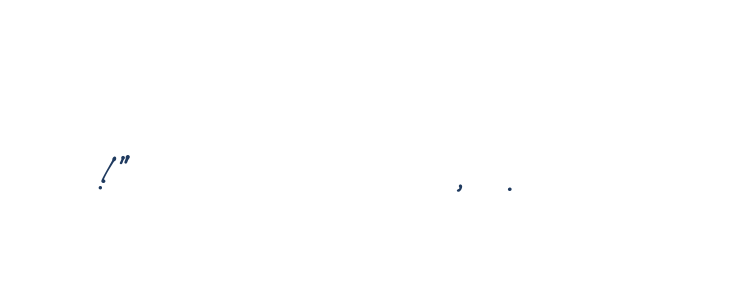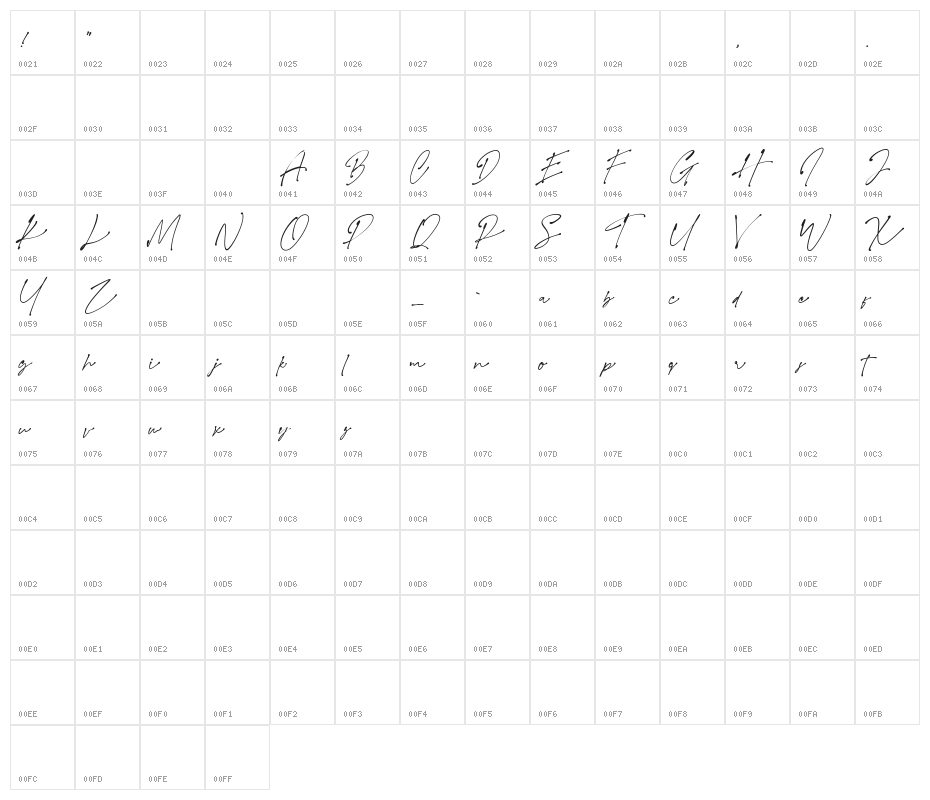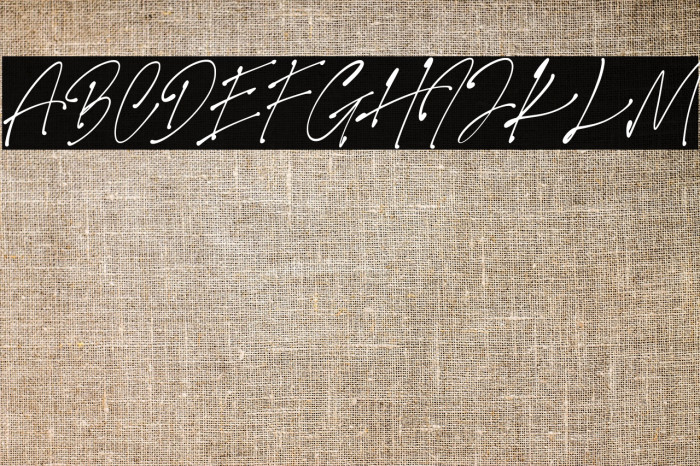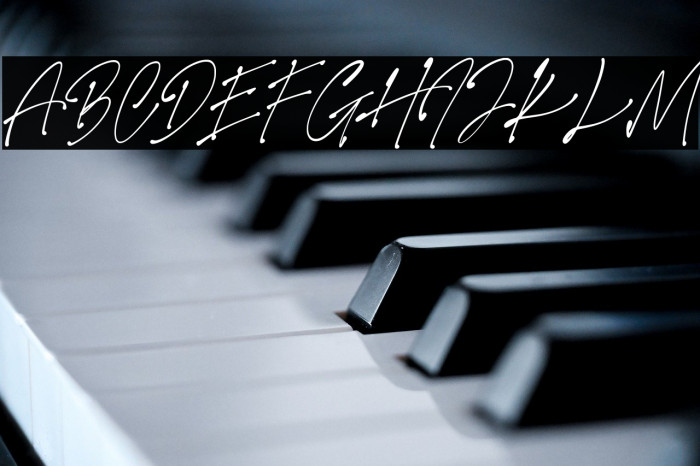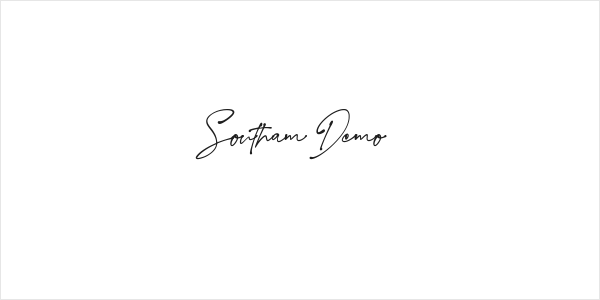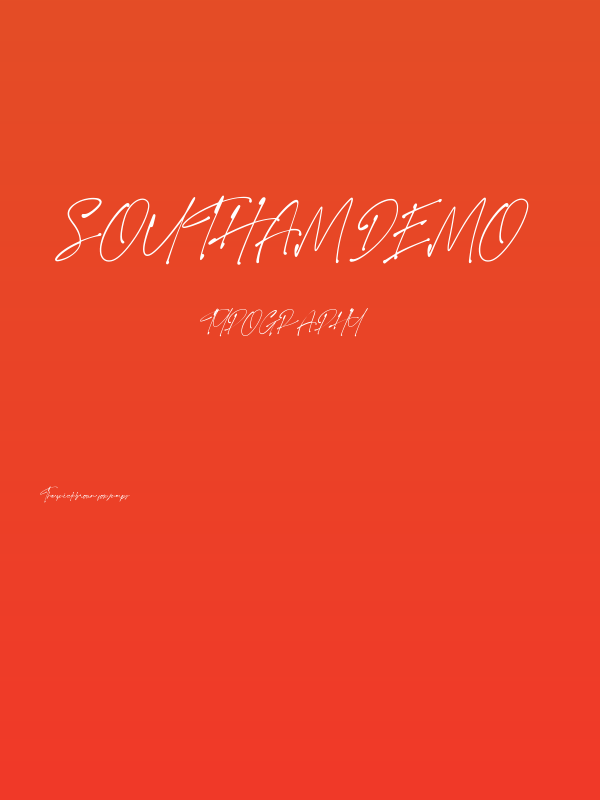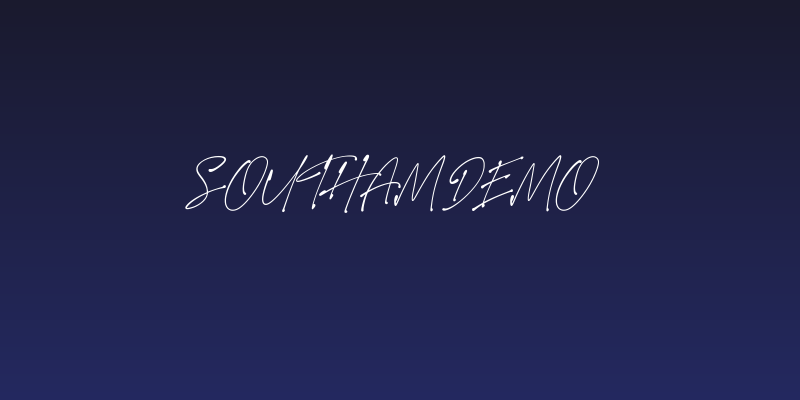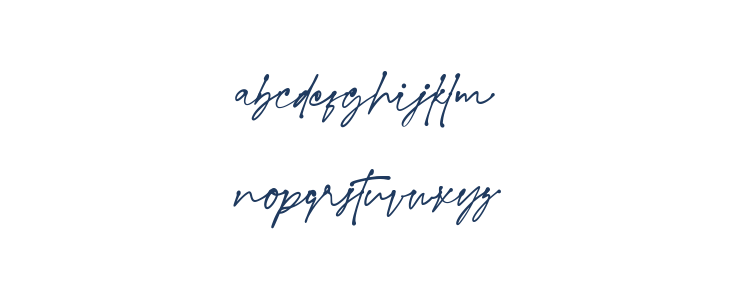
Southam Demo Font
Southam Demo Description
This font features an elegant and flowing script style, characterized by its smooth, cursive strokes and a handwritten appearance. The uppercase letters are tall and slightly slanted, with a graceful, looping quality that adds a touch of sophistication. The lowercase letters maintain a consistent flow, with connected strokes that enhance the handwritten feel. The font includes a variety of special characters, maintaining the same fluid style. Its overall appearance is both stylish and approachable, making it suitable for a range of creative applications.
| Overall Style | Elegant, Handwritten |
| Proposed Projects | Ideal for wedding invitations, greeting cards, personal branding, and elegant logos. |